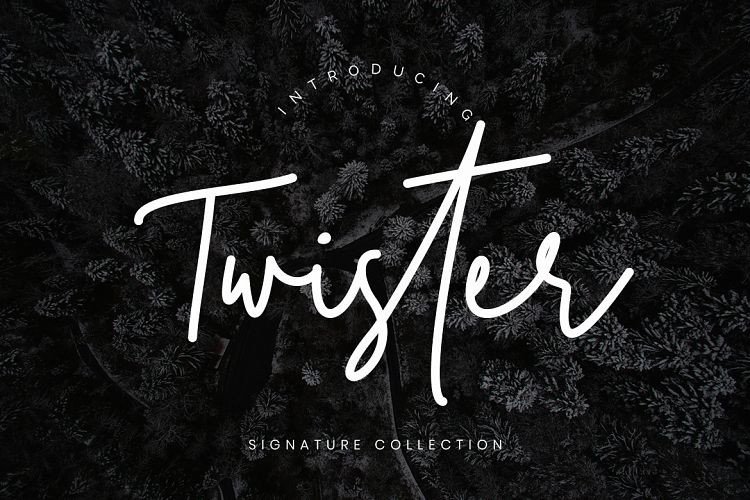
Twister Handwritten Font
This is a new modern & fresh script with a handwritten and script style make this font looks elegant, natural, stylish and perfect for any awesome projects that need handwriting taste! Introducing Twister Font! It’s made with simple and elegant hand writing will create stunning signature style. It’s perfect for branding projects, logo, wedding designs, social media posts, advertisements, product packaging, product designs, label, photography, watermark, invitation, stationery and any projects that need handwriting taste.